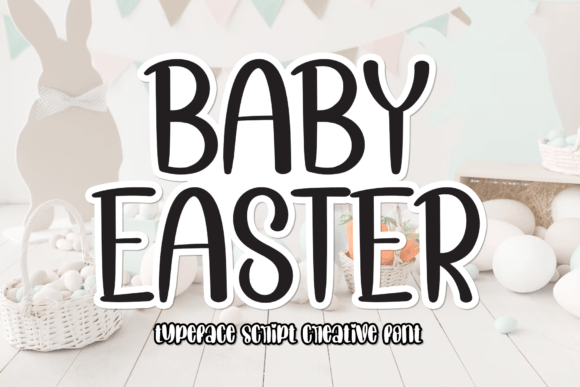
Introducing Baby Easter Font: The Gateway to Design Brilliance
In the realm of design, fonts hold the power to transform ordinary words into captivating expressions of art. With Baby Easter Font, we present a masterpiece that will ignite your creative spirit and elevate your designs to new heights.
Baby Easter Font is a charming handwritten font that exudes a sense of playfulness and warmth. Its casual, yet elegant style adds a personal touch to any project, making it perfect for creating heartfelt messages, whimsical invitations, eye-catching logos, and stunning social media posts.
Step into a World of Endless Possibilities
With its versatility, Baby Easter Font knows no bounds. Its adaptability shines through in a myriad of applications, from crafting brochures that leave a lasting impression to designing marketing materials that captivate audiences. It's the perfect font for adding a touch of magic to presentations, greeting cards, and even website designs.
Crafted with Care for Your Creative Journey
Each stroke of Baby Easter Font has been meticulously crafted by Roronoa zoro.S.P.D., a skilled font designer with an eye for detail. This attention to detail ensures that every letter, every curve, and every flourish is perfectly rendered, providing you with a font that's both aesthetically pleasing and highly functional.
Baby Easter Font: Your Key to Design Brilliance
Join the ranks of creative visionaries who have discovered the transformative power of Baby Easter Font. Let your imagination run wild as you create designs that resonate with your audience and leave an unforgettable mark.